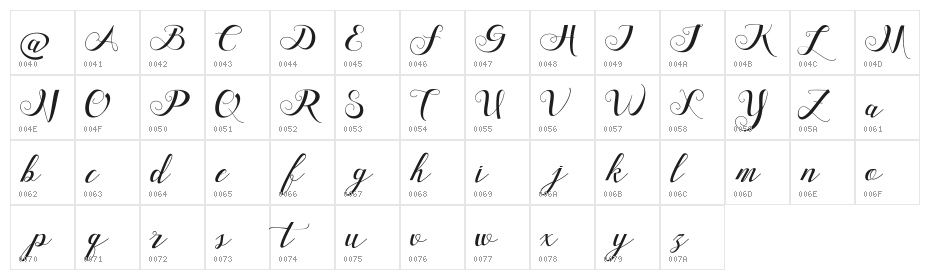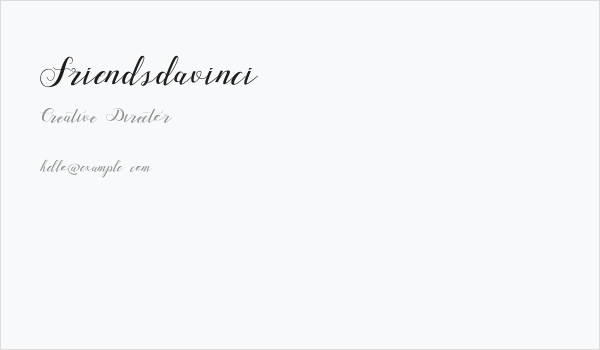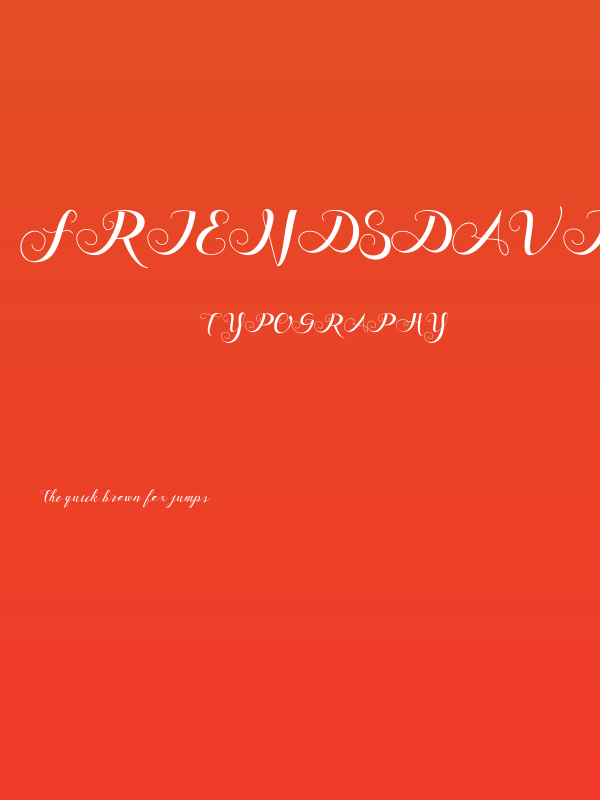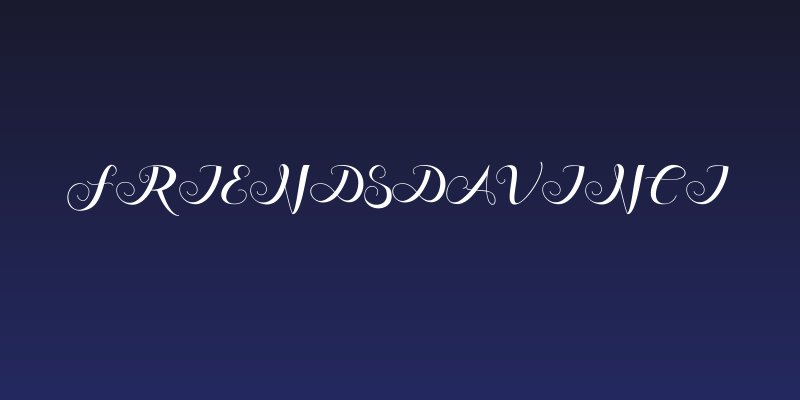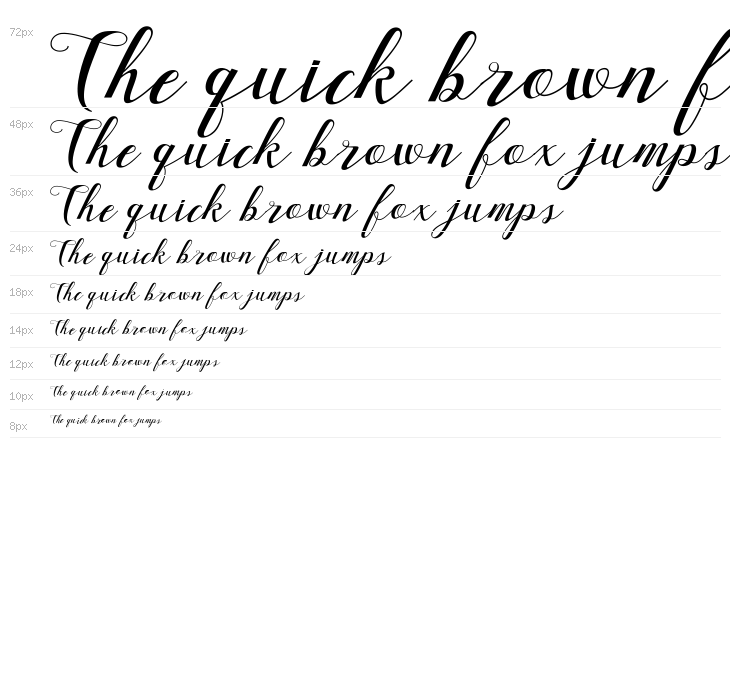
Friendsdavinci Font
| Stile generale | Elegant, Decorative |
| Caso d'uso | Headlines, Invitations, Branding |
| Progetti proposti | Ideal for wedding invitations, luxury branding, elegant stationery, and high-end product packaging. |